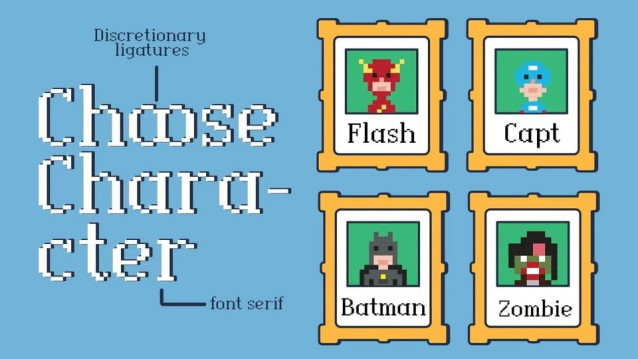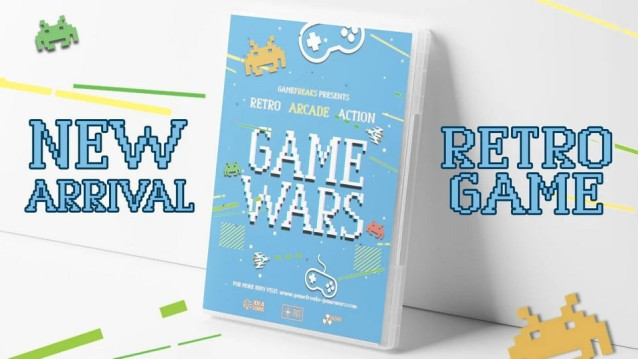
Dotrix Font
Dotrix Font is a retro pixel font offering all the styles you need for your projects. The font is perfect for pixel art graphics and games.